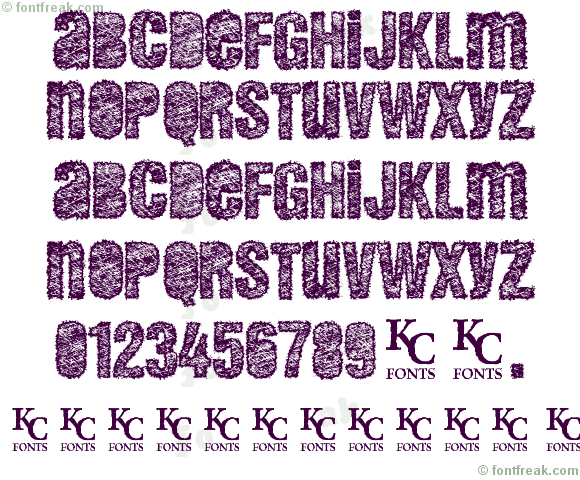
DEMENTO DEMO
About DEMENTO DEMO
The DEMENTO DEMO font by Kevin Christopher is a unique display typeface that captivates with its quirky, textured design. This font features a distinctive, hand-drawn aesthetic that sets it apart from more conventional typefaces. The strokes are irregular, giving the letters a lively and organic feel, while the varying stroke weights contribute to its playful character. The spacing between the characters is generous, which enhances legibility and allows the design to breathe, making it suitable for both headings and body text in creative projects.
DEMENTO DEMO excels in various applications where a touch of whimsy is desired. It is particularly well-suited for eye-catching movie posters, where its bold and unconventional style can draw attention. Additionally, this font would make a great choice for designing promotional materials for art festivals or music events, where a creative and laid-back vibe is essential. Wedding invitations that aim for a unique and informal look can also benefit from this font's charming character. Furthermore, small business owners looking to create engaging branding materials, such as logos or menus, will find DEMENTO DEMO to be an excellent fit.
Targeted primarily at graphic designers, content creators, and small business owners, DEMENTO DEMO font free download provides an accessible option for those seeking to inject personality into their projects. This font stands out not only for its visual appeal but also for its versatility and ability to convey a sense of fun and creativity. It invites viewers to take a closer look, making it an ideal choice for anyone looking to make a memorable impression. With its unique style and free licensing, DEMENTO DEMO is a must-have addition to any designer's toolkit.